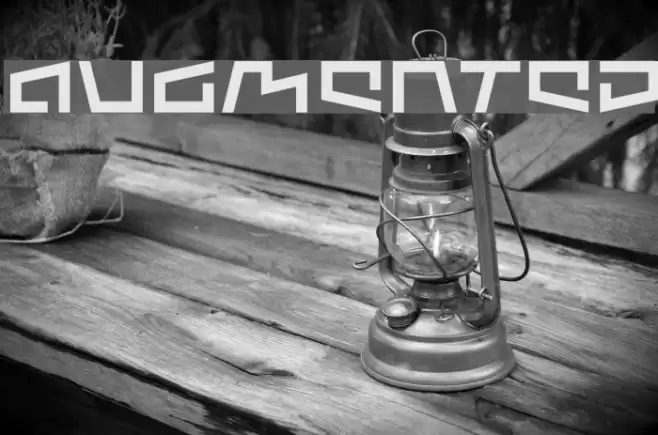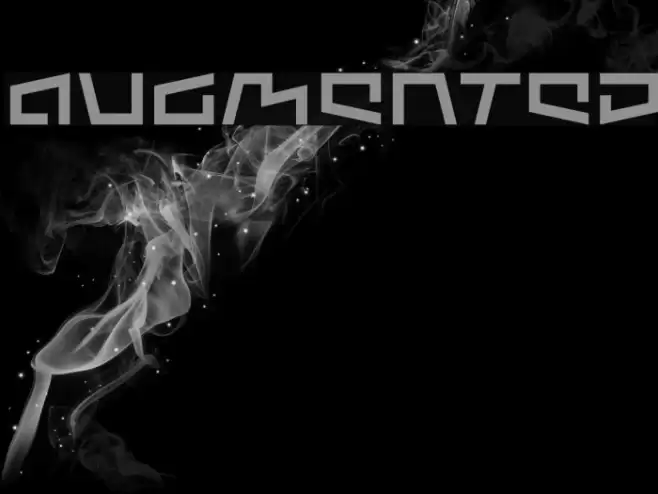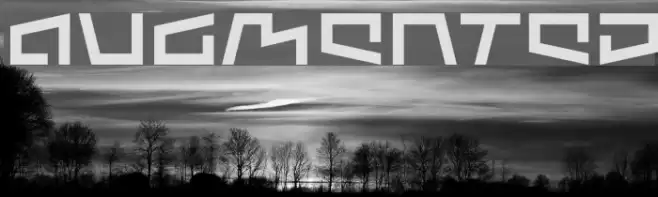
Augmented Font
Augmented Description
This font features a futuristic and angular design, characterized by sharp edges and geometric shapes. The uppercase and lowercase letters share a consistent style, with a distinct emphasis on symmetry and bold lines. The numbers are enclosed in rectangular shapes, adding a unique touch to the overall aesthetic. Special characters follow the same geometric pattern, maintaining the font's cohesive look. This font's design is both modern and striking, making it ideal for projects that require a bold and innovative appearance.
| Proposed Projects | Ideal for sci-fi themed designs, tech branding, video game titles, and modern posters. |